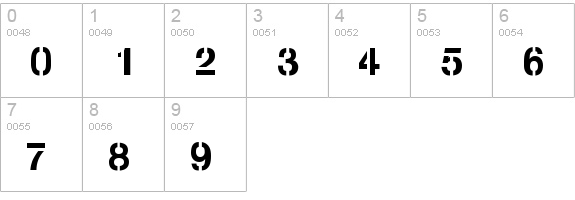
Stencilia-A Font Details
Introducing Stencilia-A, a bold and versatile font that exudes a unique blend of modernity and classic elegance. With its striking stenciled design, Stencilia-A commands attention and makes a powerful statement in any design project. This font is perfect for creating eye-catching headlines, posters, logos, and more. Its clean lines and geometric shapes give it a contemporary edge, while its stencil effect adds a touch of industrial charm. Stencilia-A is a versatile font that can be used for a wide range of design applications, from branding to editorial design. The best part? Stencilia-A is completely free to download at FontsMarket.com! Whether you're a seasoned designer looking to add a fresh new font to your collection or a novice designer exploring typography for the first time, Stencilia-A is a fantastic choice that won't cost you a penny. Download Stencilia-A today and unleash your creativity with this stylish and impactful font.